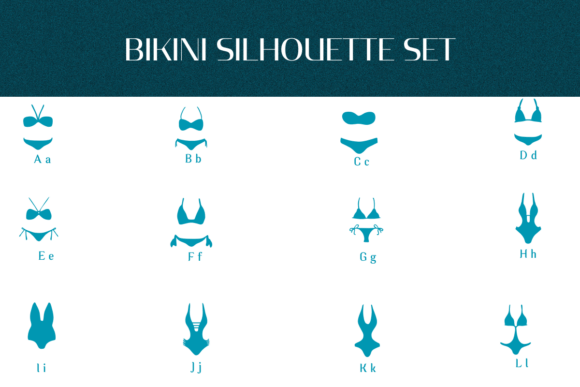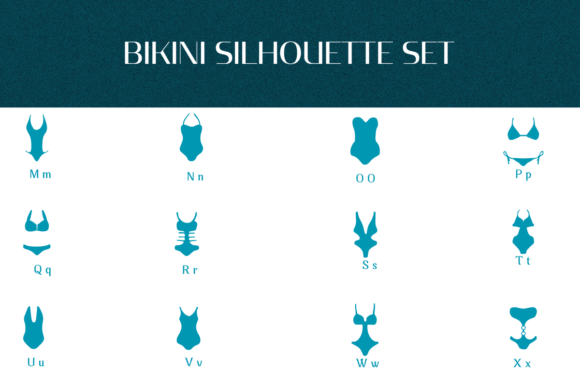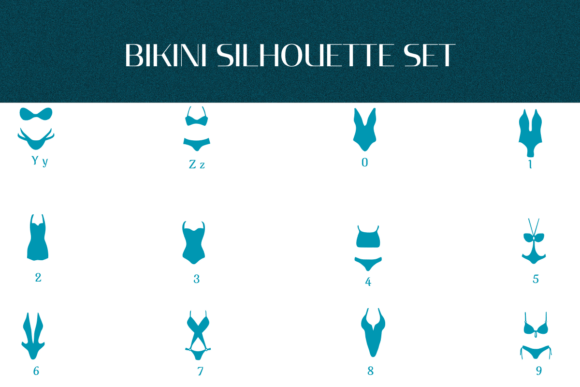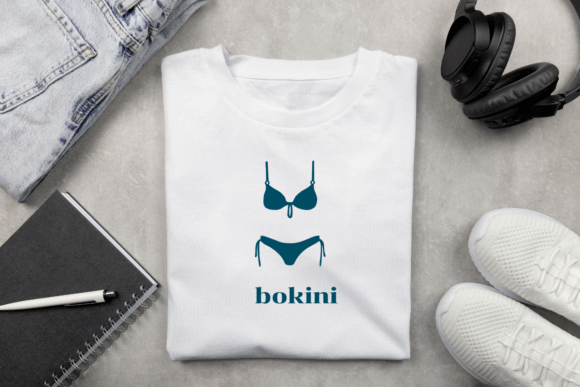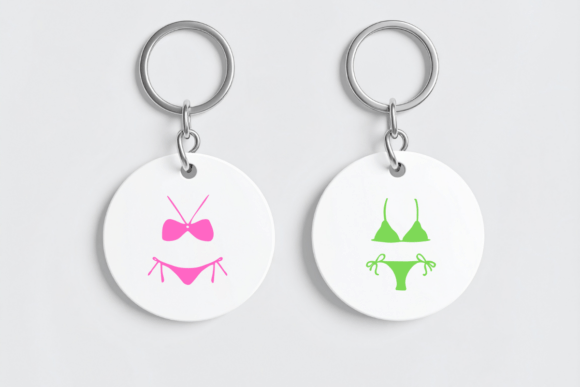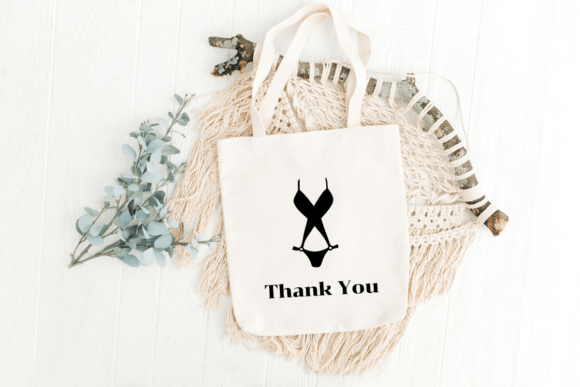
Dive into Summer Vibes with the Bikini Silhouette Set Font
Are you ready to make a splash with your designs this summer? Look no further than the Bikini Silhouette Set font, a playful and stylish dingbat collection that’s perfect for beach lovers and fashion enthusiasts alike. This unique typeface transforms your keyboard into a wardrobe of trendy swimwear, featuring everything from classic two-pieces to modern monokinis.
Aesthetic and Versatility
The Bikini Silhouette Set font boasts a clean and minimalist aesthetic that scales perfectly for high-resolution projects. Its versatility makes it an excellent choice for a wide range of applications, from summer sale flyers and pool party invitations to tropical-themed social media graphics. Whether you’re designing for a boutique clothing brand or creating custom planners, this font provides the perfect illustrative touch without needing a separate vector library.
Design Possibilities
With the Bikini Silhouette Set font, your design possibilities are endless. Here are a few ideas to get you started:
- Summer Sale Flyers: Create eye-catching promotions for your summer sales with a font that’s as trendy as the latest swimwear.
- Pool Party Invitations: Set the tone for a fun and relaxed pool party with custom invitations featuring the Bikini Silhouette Set font.
- Tropical-Themed Social Media Graphics: Add a touch of summer vibes to your social media posts with custom graphics that showcase your brand’s personality.
- Boutique Clothing Brand: Elevate your brand’s visual identity with a font that’s as stylish as your clothing lines.
- Custom Planners: Add a fun and playful touch to your custom planners with the Bikini Silhouette Set font.
Pairing Options
The Bikini Silhouette Set font pairs perfectly with a variety of typefaces to create a unique and stylish look. Here are a few pairing options to consider:
- Bold Sans-Serif: Pair the Bikini Silhouette Set font with a bold sans-serif for a striking contrast that’s sure to grab attention.
- Breezy Script: Combine the Bikini Silhouette Set font with a breezy script for a relaxed, coastal feel that’s perfect for summer-themed designs.
The Bikini Silhouette Set font offers a range of benefits for designers and crafters, including:
- Time-Saving: With a comprehensive collection of bikini silhouettes at your fingertips, you can save time and focus on other aspects of your design.
- Unique Designs: The Bikini Silhouette Set font allows you to create unique and eye-catching designs that stand out from the crowd.
- Scalability: The font scales perfectly for high-resolution projects, ensuring that your designs look great on any device.
- Ease of Use: The Bikini Silhouette Set font is easy to use and requires no separate vector library, making it a convenient addition to your design toolkit.
Dive into summer vibes with the Bikini Silhouette Set font, a playful and stylish dingbat collection that’s perfect for beach lovers and fashion enthusiasts alike. With its clean and minimalist aesthetic, versatility, and ease of use, this font is sure to become a staple in your design toolkit. So why wait? Get ready to make a splash with your designs this summer and download the Bikini Silhouette Set font today!